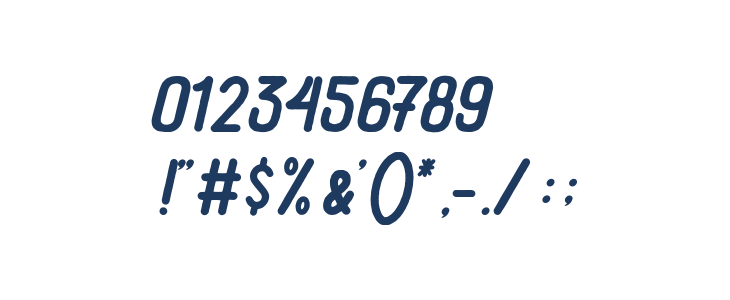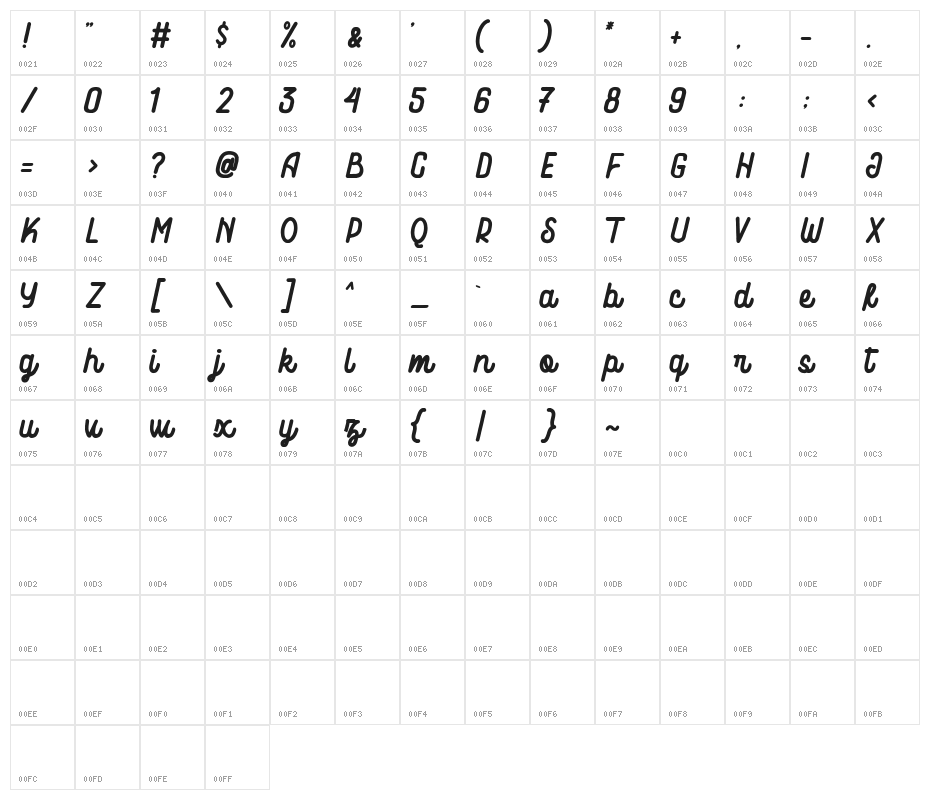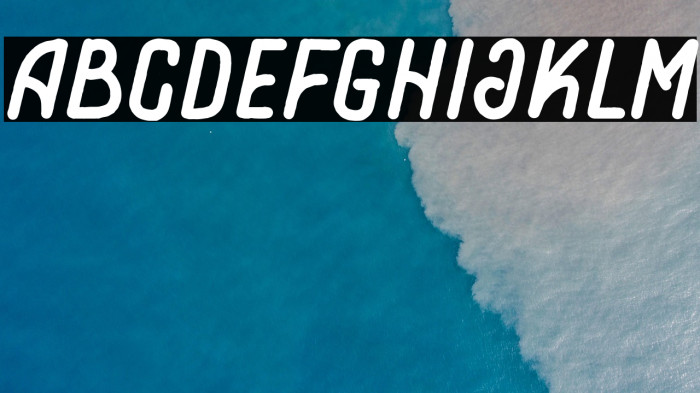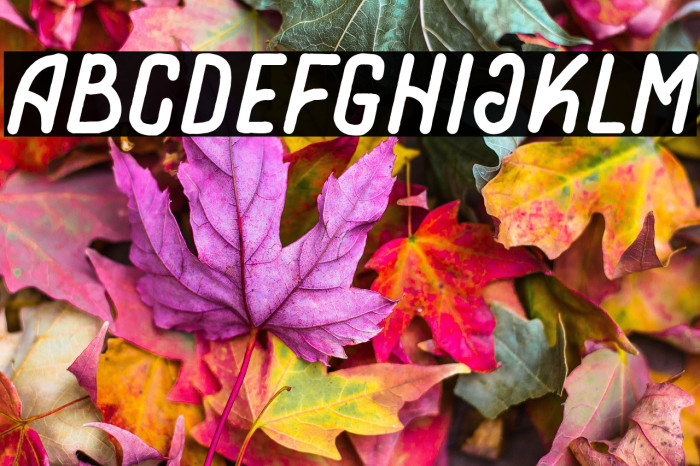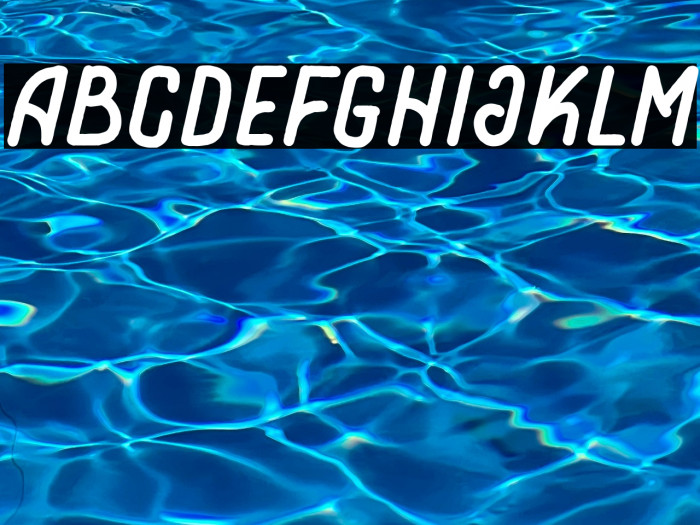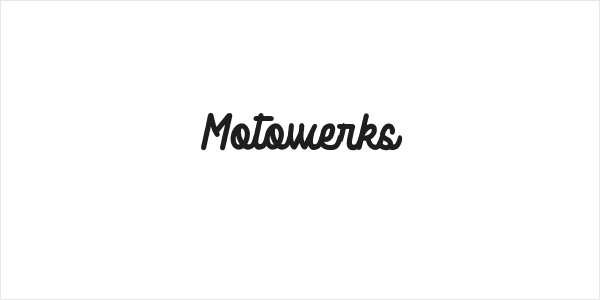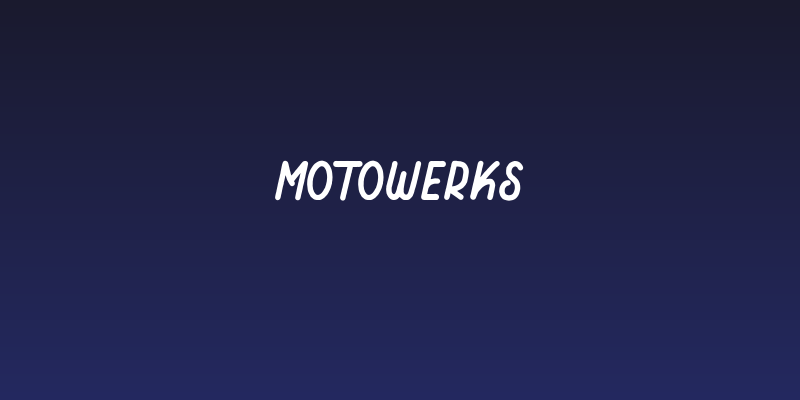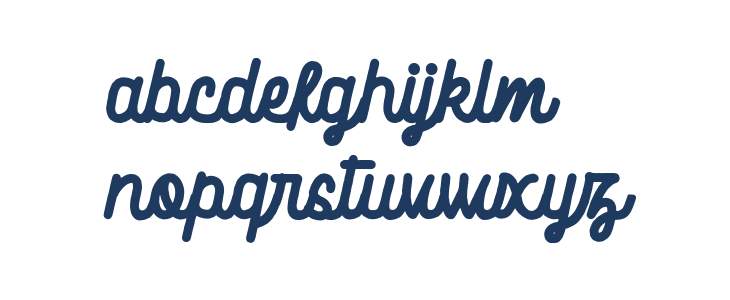
Motowerks Font
Motowerks Description
This font features a bold, playful script style with a modern twist. The letters are connected in a flowing manner, giving it a handwritten appearance. The uppercase characters maintain a consistent height, while the lowercase letters have a slight slant, adding to the dynamic feel. The numbers are clear and legible, matching the overall style of the alphabet. Special characters are included, maintaining the same bold and cohesive design. The font's rounded edges and smooth curves contribute to its friendly and approachable look, making it suitable for a variety of creative applications.